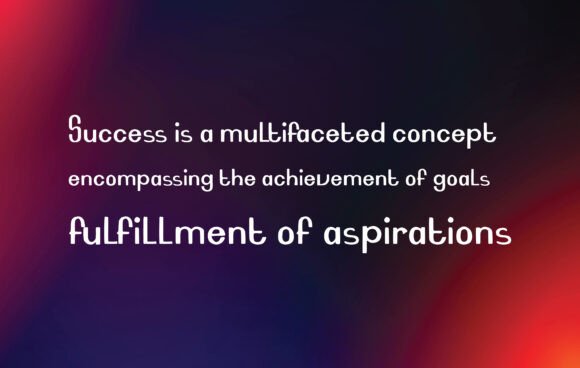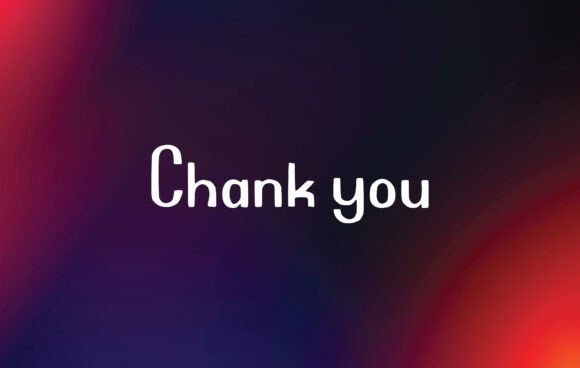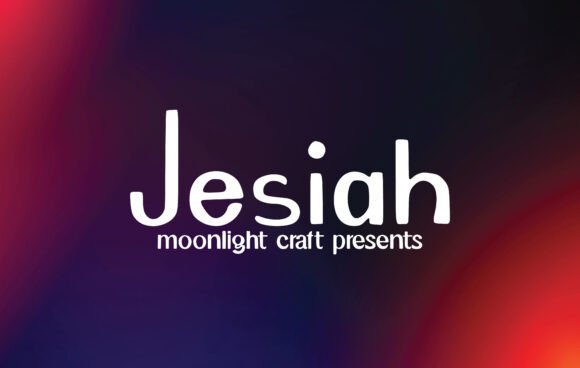
Introduction to Jesiah Font
Jesia is a lovely and beautiful handwritten font.
Key Features of Jesiah Font
Why Choose Jesiah Font?
Jesiah Font offers exceptional quality and versatility, making it a valuable addition to your design toolkit. Whether you’re creating for personal projects or commercial use, Jesiah Font delivers professional results.